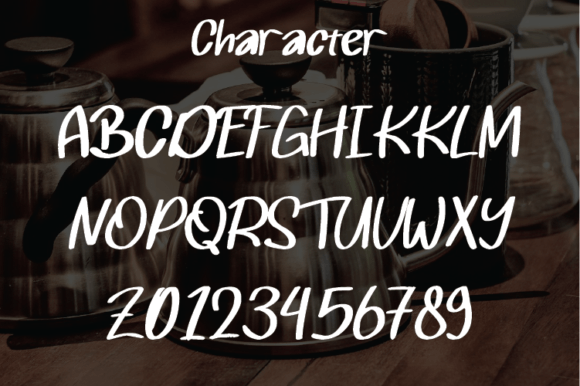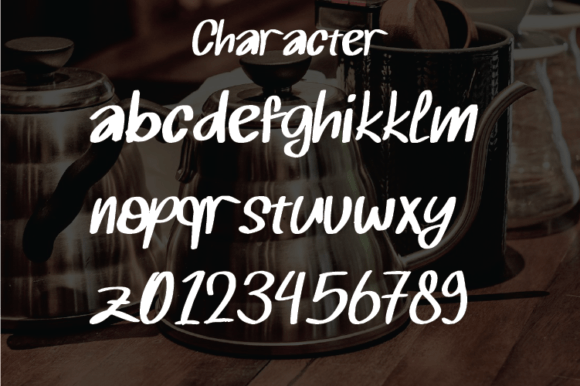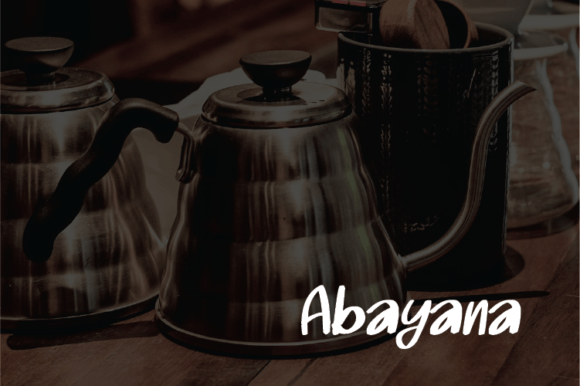
About Abayana Font
Abayana is a script typeface characterized by its simple yet modern design. With a clean and sleek style, this font is ideal for creating an elegant and luxurious visual experience. Its versatility makes it a perfect choice for a range of design applications, including logos, book or movie design titles, fashion brands, magazines, clothing, fonts, quotes, and more.
The simplicity of Abayana’s style adds to its sophistication, making it suitable for projects that require an understated yet refined aesthetic. The modern look of the typeface aligns it with contemporary design trends, ensuring that it remains relevant and visually appealing.
Whether you’re working on branding materials, editorial layouts, or any creative endeavor that demands a touch of elegance, Abayana stands out as a typeface that enhances the overall visual impact. Its clean lines and modern appeal make it adaptable to different design contexts.
Imagine Abayana gracing your designs, whether on an elegant logo, stylish fashion branding, or impactful book design titles. The font becomes a key element that adds a layer of sophistication, making your creations stand out with a touch of modern luxury.
In summary, Abayana is more than just a font; it’s a design tool that brings simplicity, modernity, and elegance to your projects. Embrace its clean style confidently, and let Abayana be the typeface that elevates your designs with a sense of timeless and luxurious charm.